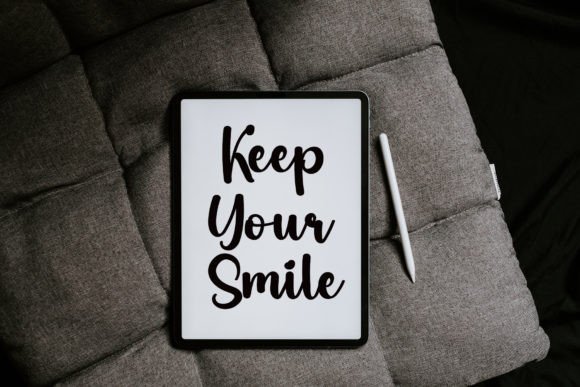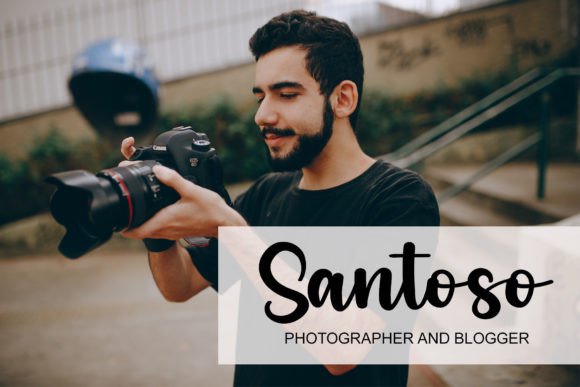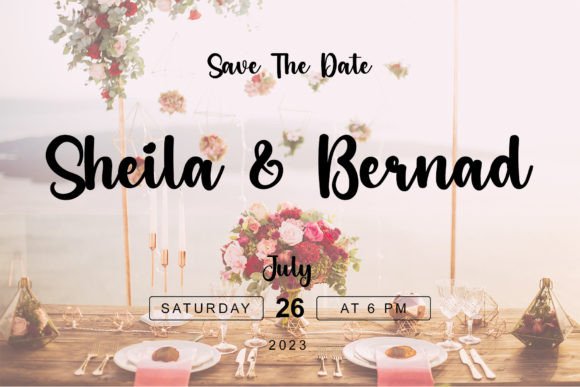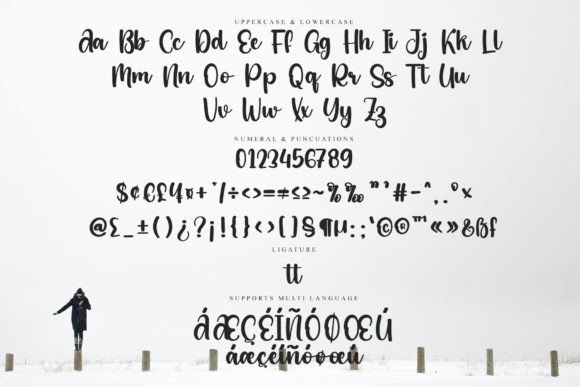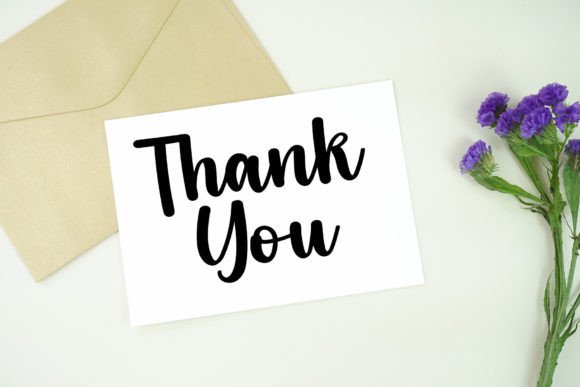
Introducing Beach Holiday Font: The Perfect Blend of Playful and Professional
Are you tired of using fonts that are either too playful or too dull? Look no further than Beach Holiday Font, a bold and expressive typeface that strikes the perfect balance between fun and professionalism. With its thick and solid lines, conservative bends, and high legibility, Beach Holiday Font is ideal for a wide range of design projects, from creative crafts to commercial branding.
Beach Holiday Font boasts a unique design that sets it apart from other fonts. Its thick and solid lines make it easy to read, even at small sizes, while its conservative bends prevent it from feeling overwhelming or too playful. This balanced fusion of characteristics makes Beach Holiday Font an excellent choice for designers and crafters who want to add a touch of personality to their work without sacrificing legibility.
- Bold and Expressive: Beach Holiday Font makes a statement with its bold and expressive design, perfect for headlines, titles, and emphasis text.
- High Legibility: The font’s thick and solid lines ensure that it remains easy to read, even at small sizes or from a distance.
- Conservative Bends: The font’s conservative bends prevent it from feeling too playful or overwhelming, making it suitable for a wide range of design projects.
- Playful yet Professional: Beach Holiday Font strikes the perfect balance between playful and professional, making it ideal for designers and crafters who want to add a touch of personality to their work.
Use Cases
Beach Holiday Font is versatile and can be used in a variety of design projects, including:
- Branding and Logo Design: The font’s bold and expressive design makes it perfect for logos, brand names, and taglines.
- Headlines and Titles: Beach Holiday Font is ideal for headlines, titles, and emphasis text, adding a touch of personality to any design.
- Signage and Display: The font’s high legibility and bold design make it suitable for signage, display text, and advertising.
- Crafts and DIY Projects: Beach Holiday Font is perfect for crafters and DIY enthusiasts who want to add a personal touch to their projects, such as handmade cards, invitations, and decorations.
Tips for Using Beach Holiday Font
To get the most out of Beach Holiday Font, consider the following tips:
- Pair with a Simple Font: Pair Beach Holiday Font with a simple, sans-serif font to create a striking contrast and add visual interest to your design.
- Use for Emphasis: Use Beach Holiday Font to add emphasis to specific text elements, such as headlines, titles, or calls-to-action.
- Experiment with Colors: Beach Holiday Font looks great in a variety of colors, so don’t be afraid to experiment and find the perfect hue for your design.
Beach Holiday Font is a versatile and stylish typeface that offers the perfect blend of playful and professional characteristics. With its bold and expressive design, high legibility, and conservative bends, it’s ideal for a wide range of design projects, from creative crafts to commercial branding. Whether you’re a designer, crafter, or DIY enthusiast, Beach Holiday Font is sure to become a favorite in your collection.